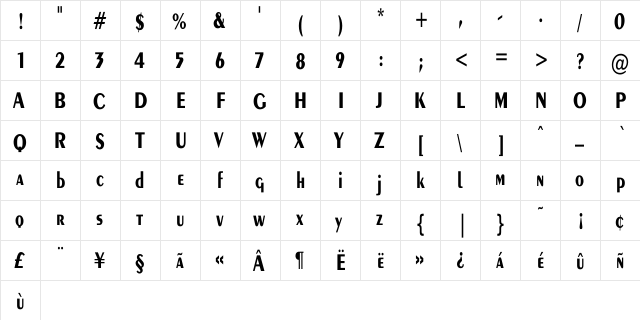
Exotic-Bold Cn Regular
Exotic-Bold Cn takes a measured approach to typography — its balanced proportions and neutral character make it a reliable workhorse for both digital and print work. Its bold stroke weight gives it real presence on the page.